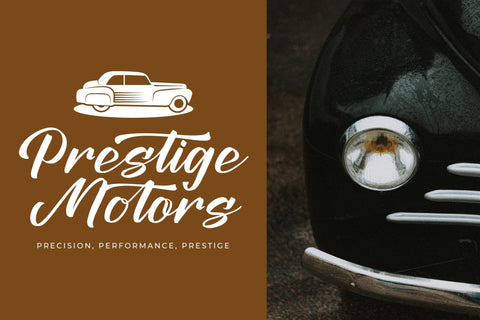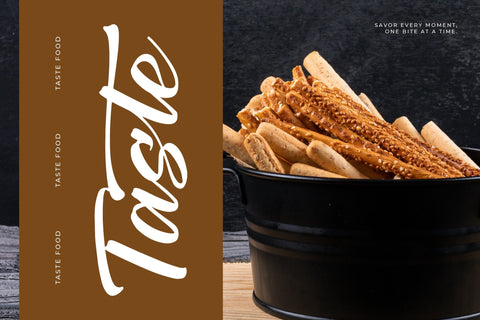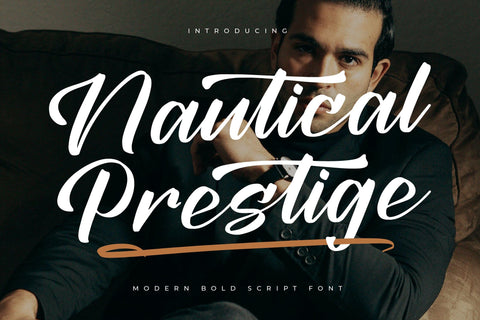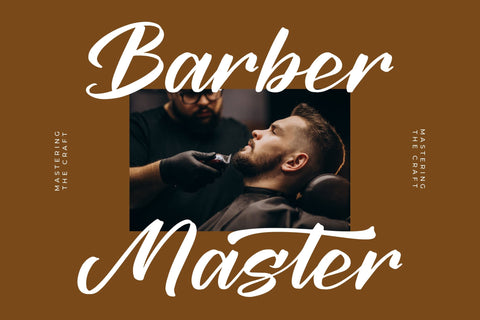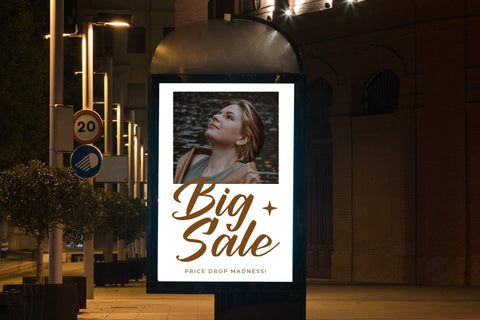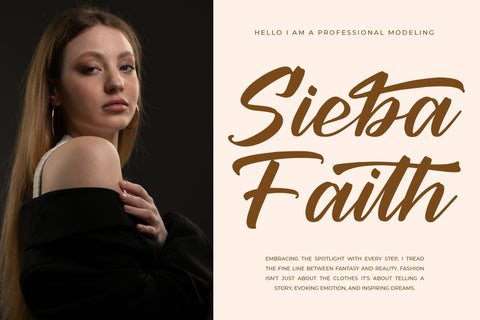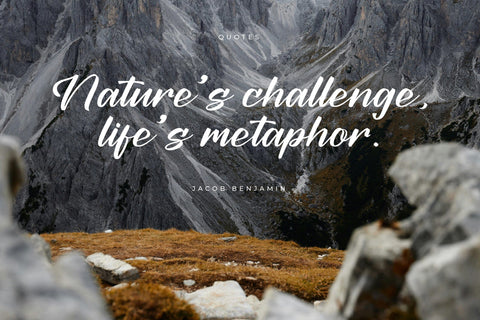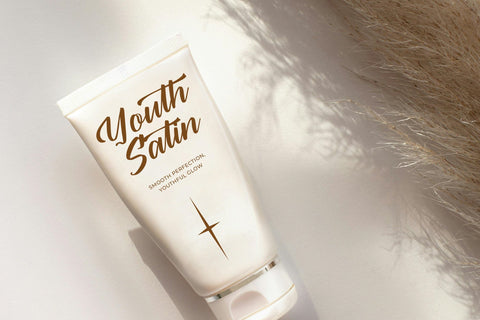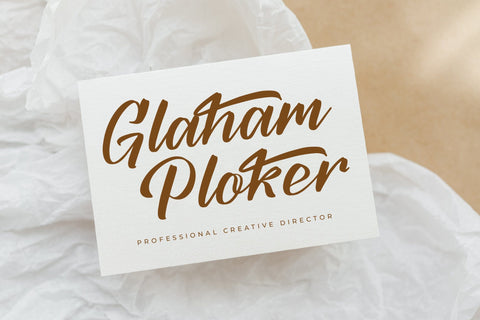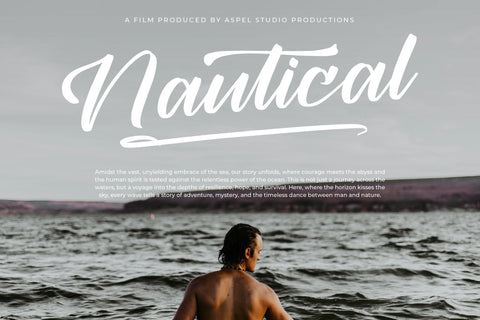
Nautical Prestige - Modern Bold Script Font
Nautical Prestige - Modern Bold Script Font , from Letterena, is a Luxury Script font, suitable for any projects such as: logos, branding projects, homeware designs, product packaging, mugs, quotes, posters, shopping bags, t-shirts, book covers, name card, invitation cards, greeting cards, label, photography, watermark, special events, and all your other luxury and beautiful projects that need a Luxury Script taste.